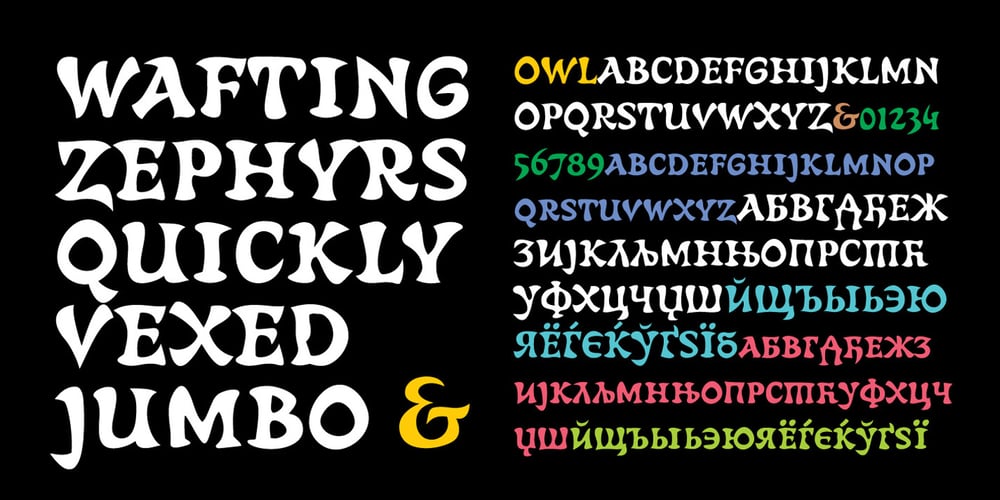
Owl font
Owl Font Family was designed by Dragan Pešić and published by Pesic. Owl contains 1 styles and family package options. Owl is an amusing, childish, ornamental font whose features include spontaneity of thick, curved and smooth strokes with sharp edges. This font includes lowercase and uppercase capital letters. Character map contains all Latin and Cyrillic glyphs of European languages. It is suitable for various headings designed for children: logotypes, books, packages, leaflets, posters, T-shirts, television, advertisements.